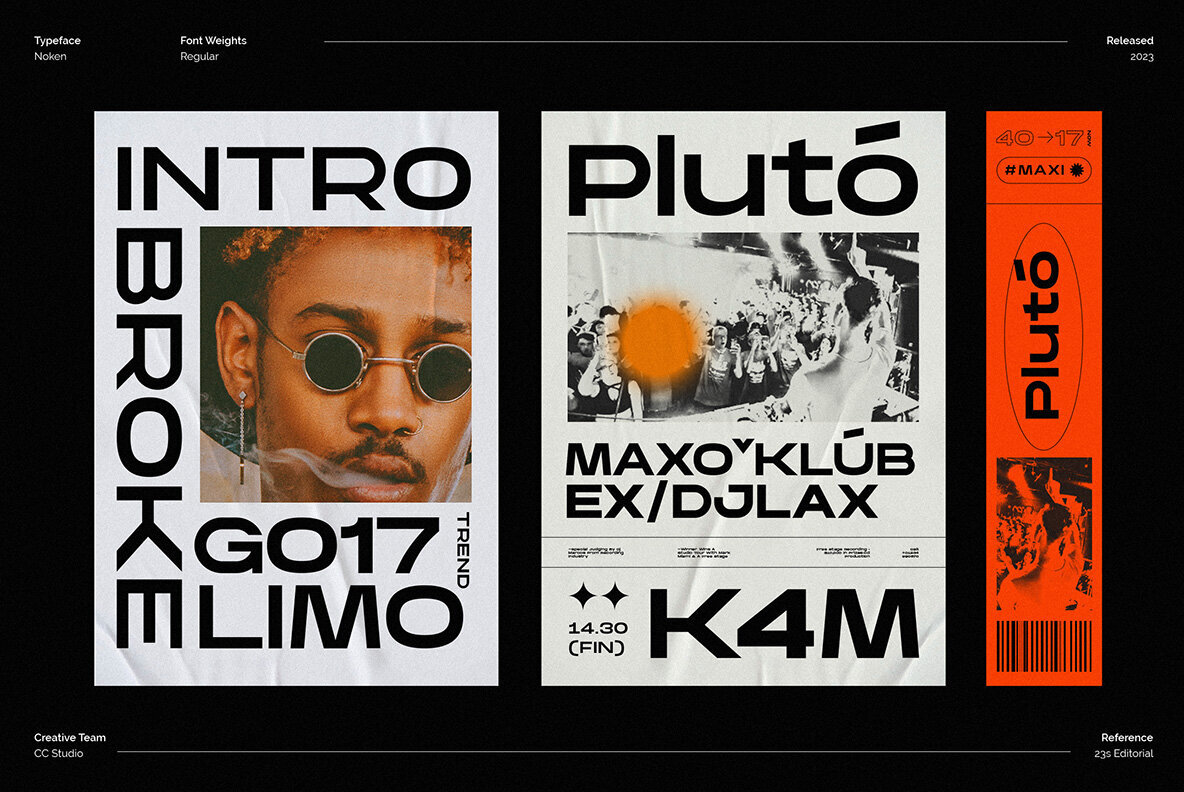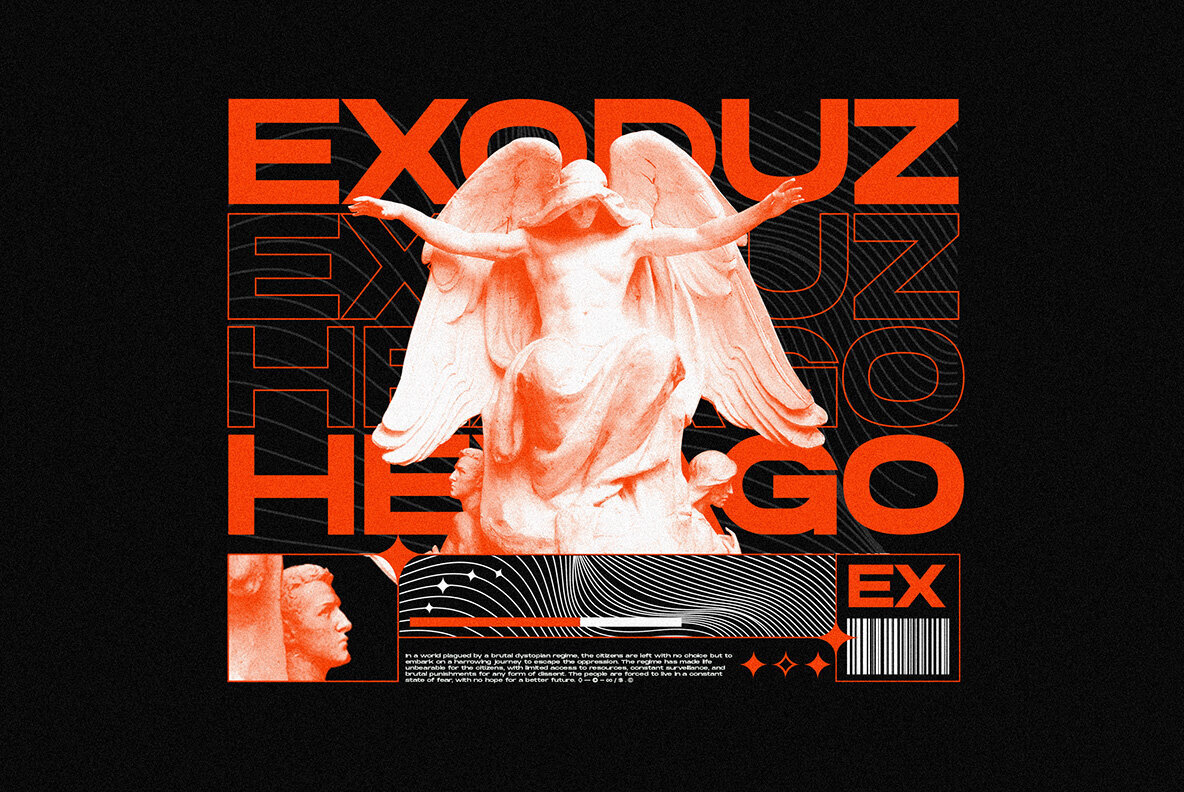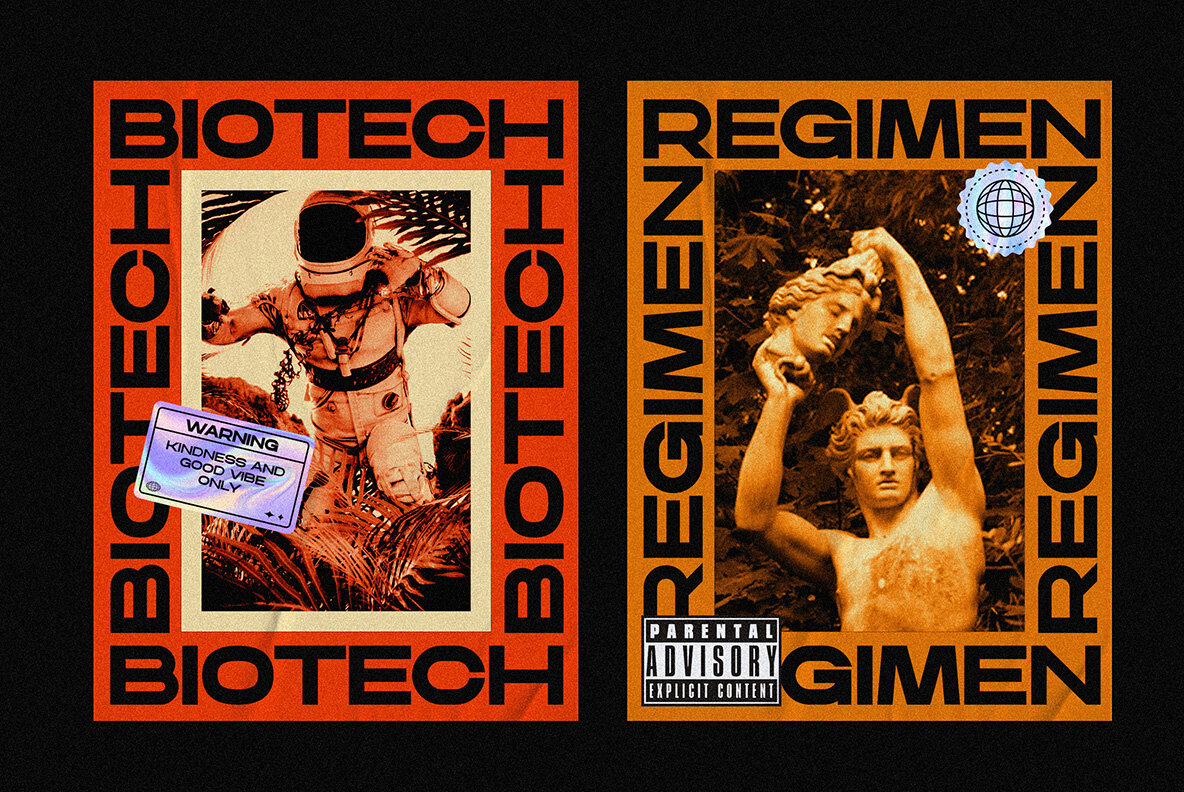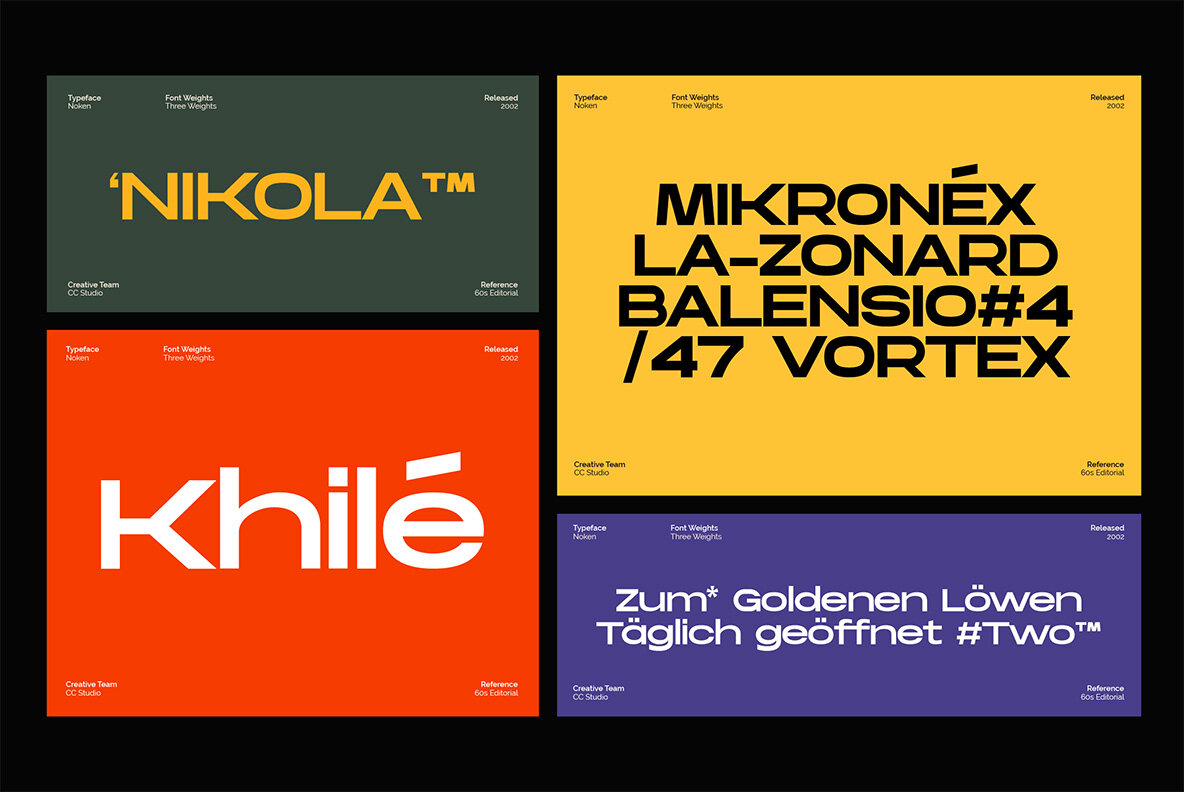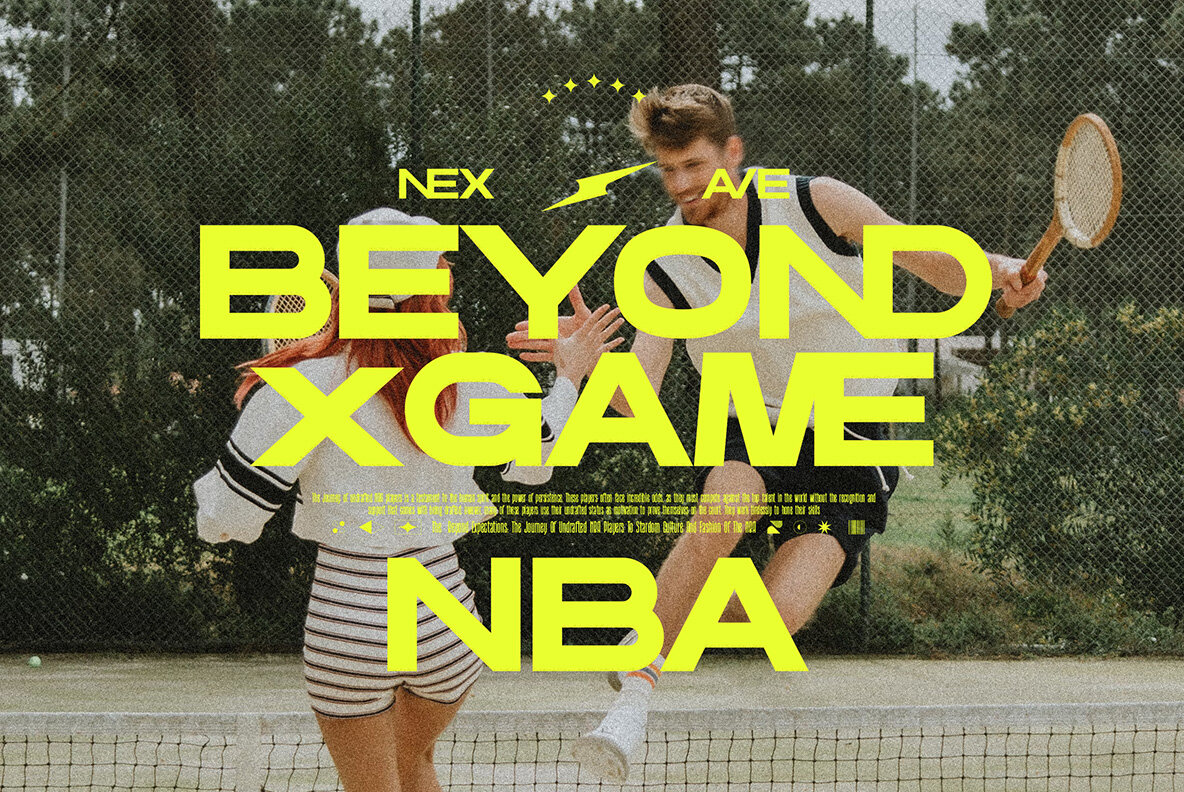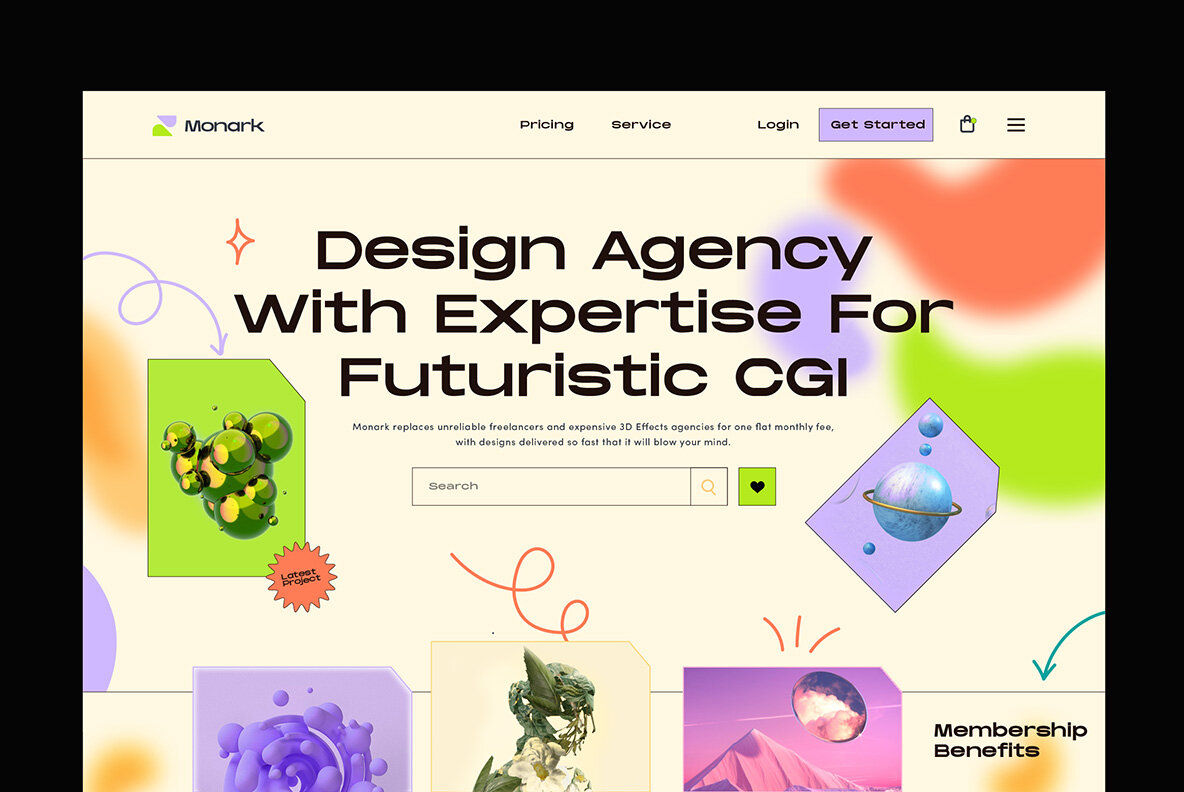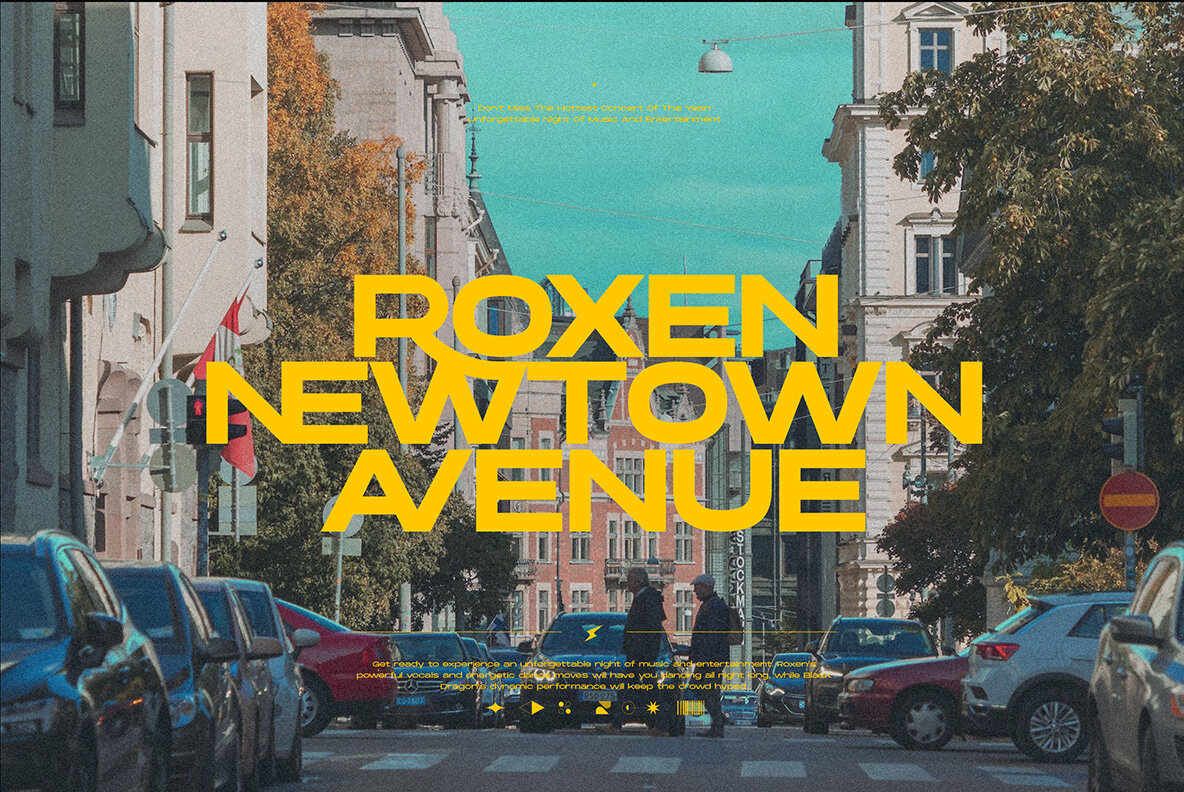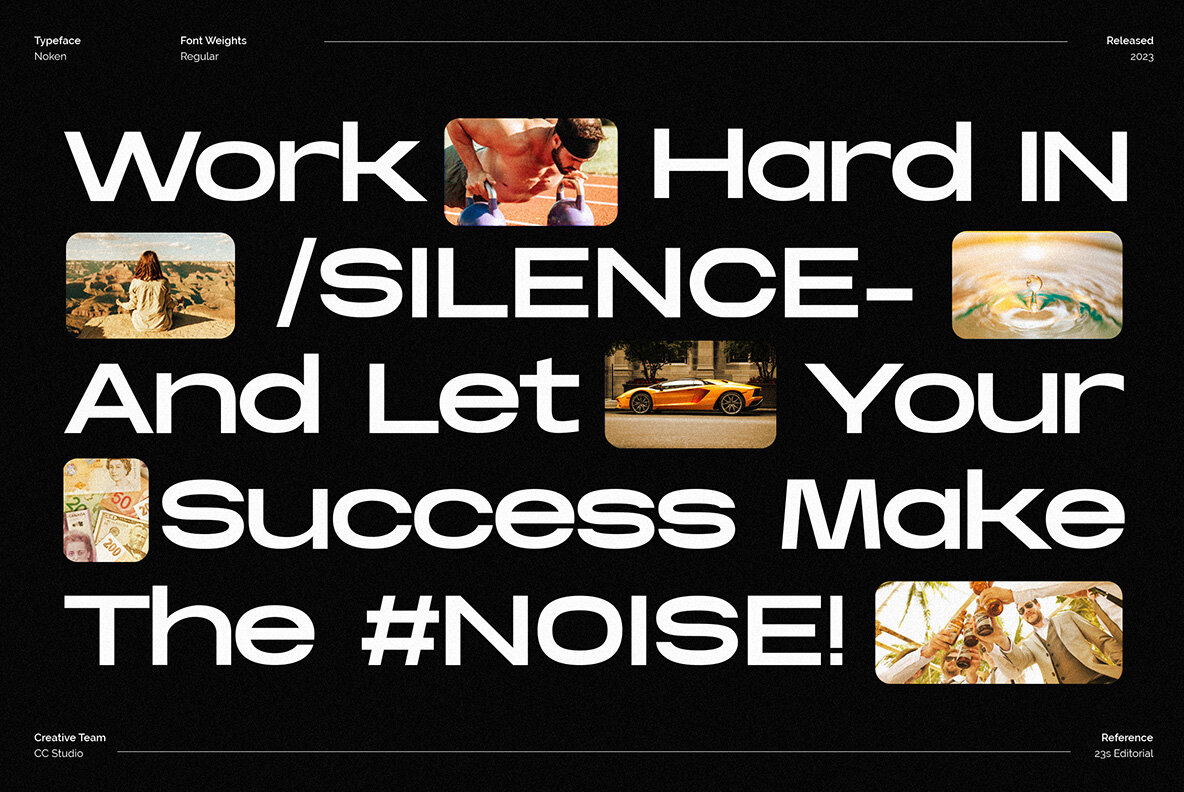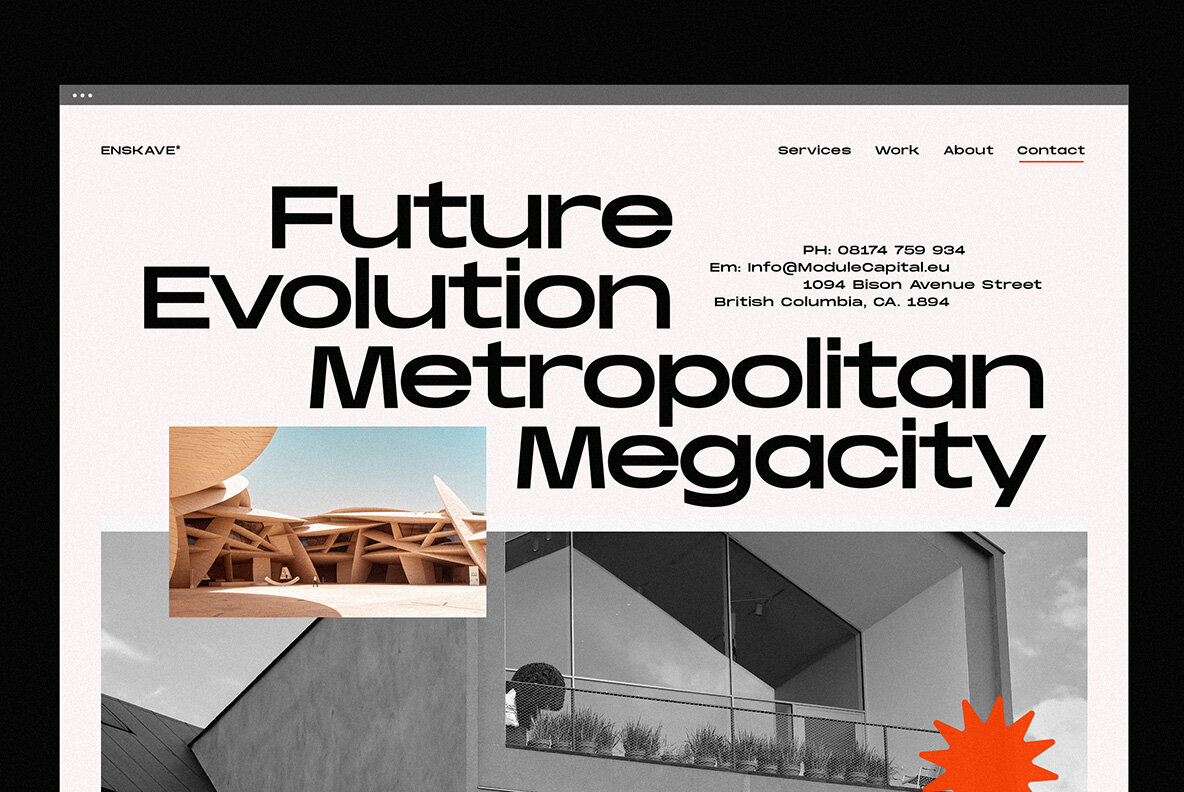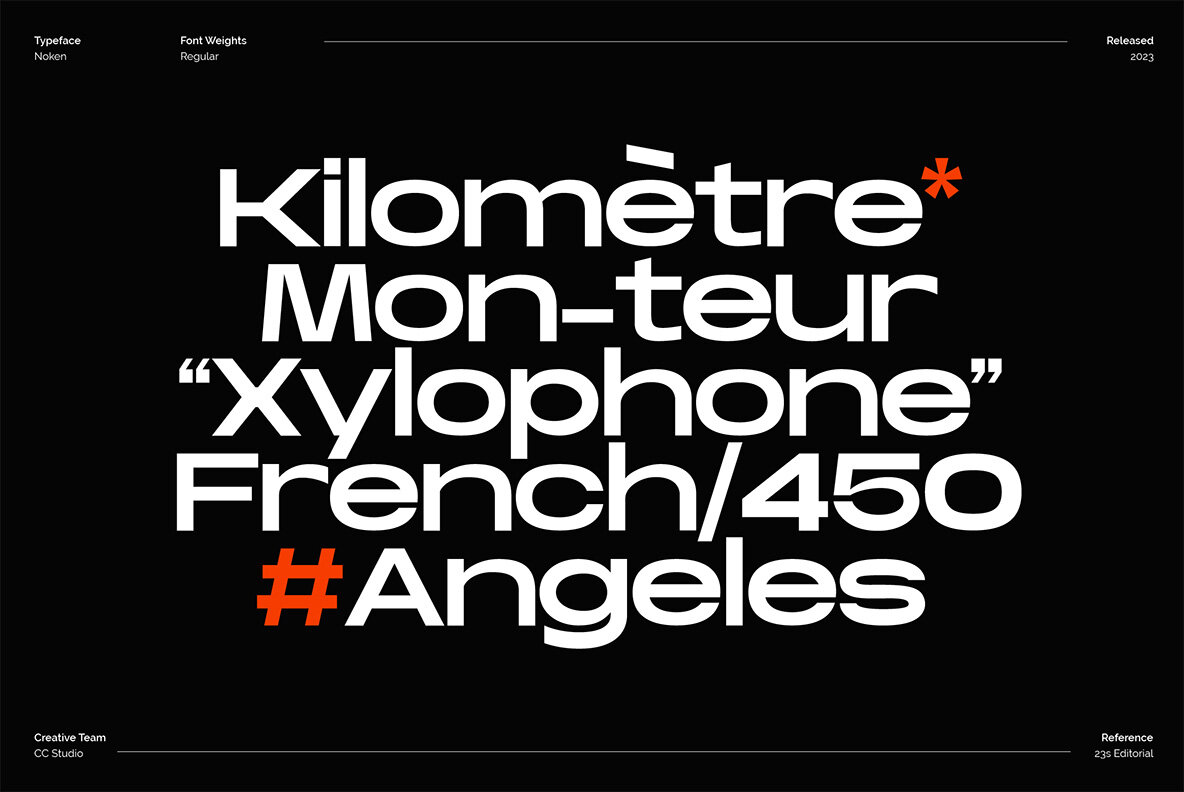
Noken Font
Noken Extended is a sleek and versatile sans-serif display typeface family that comes in three weights with ligatures and alternate letters. Its extended width makes it perfect for creating attention-grabbing typography, whether you're designing for print or digital media. Noken Extended is an excellent choice for designers looking to add sophistication and style to their designs with bold and unique typography.
- 3 Weights font
- Stylistic Alternates & Ligatures